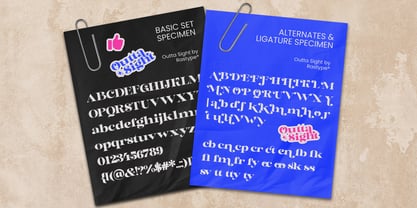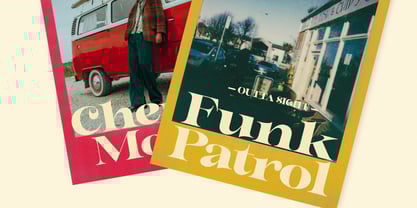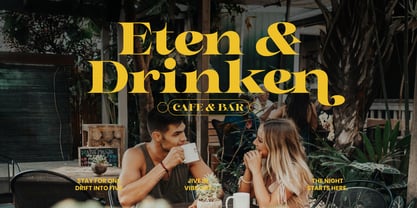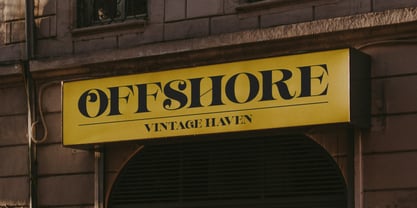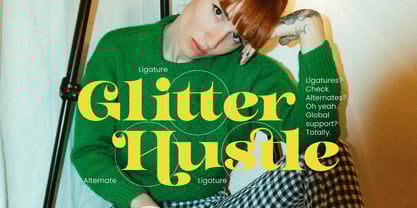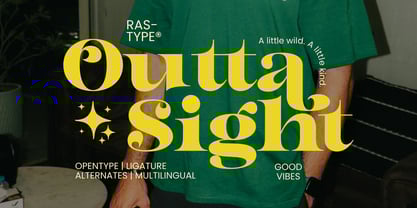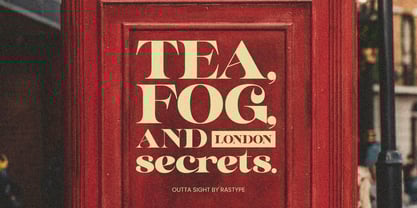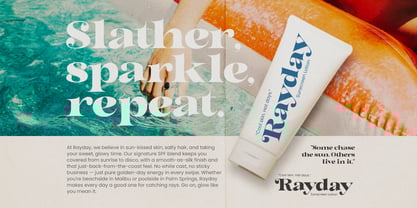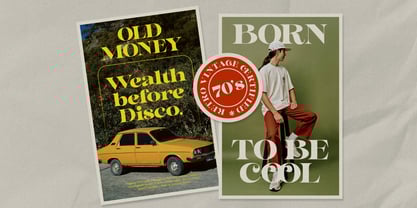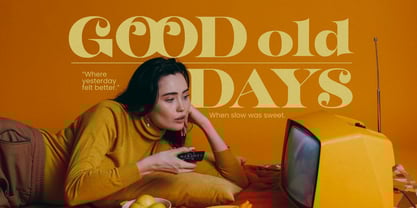
Outta Sight
by Rastype Studio
The Outta Sight Font Family was designed by Muhammad Taufik and published by Rastype Studio. Outta Sight contains 42 styles and family package options. More about this family
Introducing Outta Sight, a retro serif typeface with high contrast between thick and thin strokes. This typeface is inspired by the design aesthetics of the 1970s, blending vintage spirit with a contemporary touch.
Unique Swashes & Terminals. Curved Ligatures & Alternates: A beautiful typographic touch through special ligatures and stylistic alternates.
Best For:
Display use in branding, music or fashion promotions
Posters, album covers, event titles and other designs.